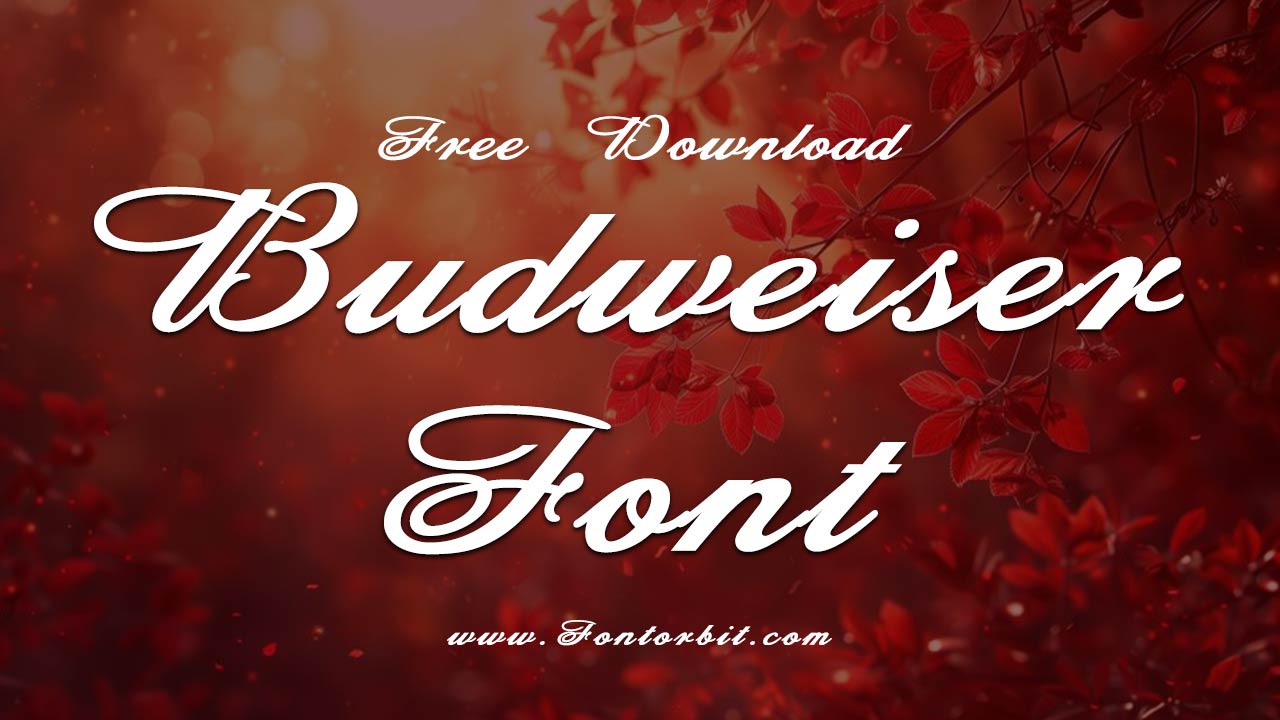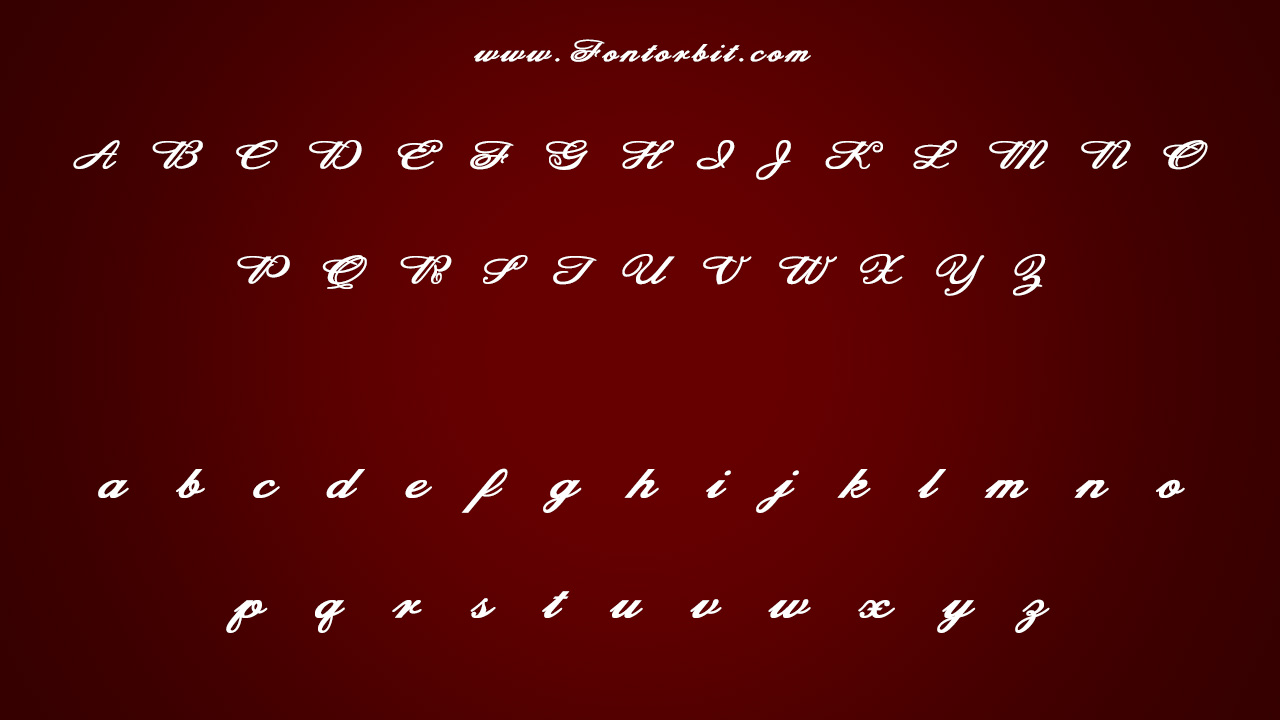
Budweiser Font, crafted by Michael Hagemann, is an elegant script typeface ideal for creating high-impact designs. With its sophisticated style, it’s perfect for branding, invitations, and promotional materials.
Well the Budweiser logo font is actually Brewmaster regular. It offers a refined touch to various design projects.
Type Of The Budweiser Font
a. Budweiser Regular
The Budweiser Font is a distinctive script typeface available in TTF format. It features elegant, handwritten letterforms, making it suitable for upscale branding and stylish designs. It includes numerals, punctuation, and ligatures.
Budweiser Font is prominently used in branding and packaging to reflect the prestigious image of the Budweiser beer. It’s also popular in high-end invitations and advertisements, providing a touch of elegance and class.
2.What Is The Budweiser Font?
The Budweiser Font, created by Michael Hagemann, is an elegant script typeface used in the Budweiser logo. It features sophisticated, handwritten letterforms suitable for high-end branding and formal designs.
4.What Are The Best Examples Of The Budweiser Font In Use?
Notable examples include the Budweiser beer logo, premium product packaging, high-end invitations, and sophisticated advertising campaigns, where its elegant style enhances the brand’s prestigious image.